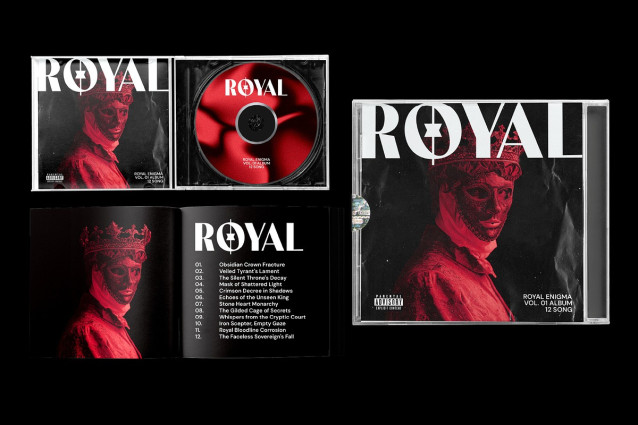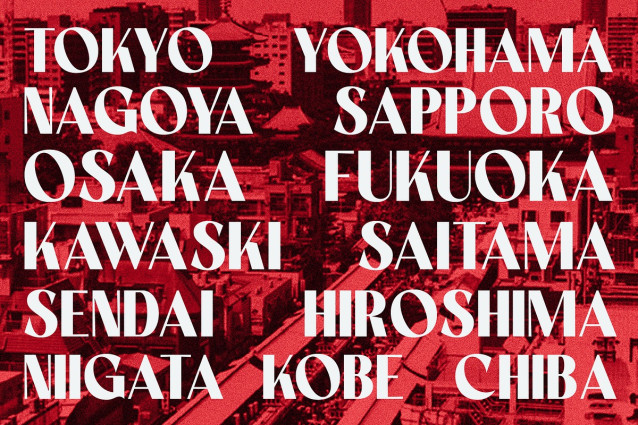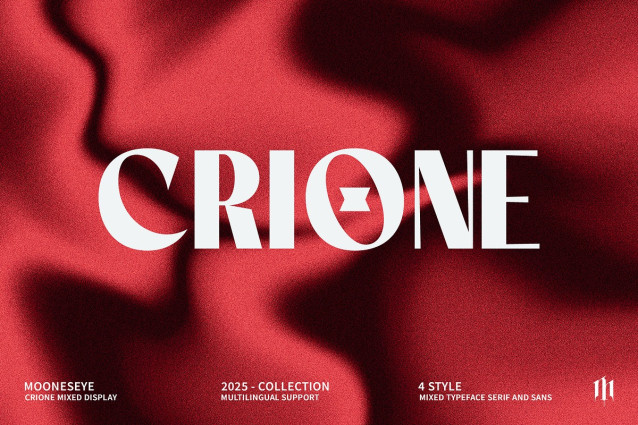
Crione Font
Crione Font a sophisticated and elegant display font that blends classic serif charm with a bold, modern edge. With its stunning high-contrast strokes and unique, geometric forms, Crione is the perfect choice for creating a premium and luxurious brand identity.
Whether you’re designing for high-end fashion, beauty brands, or an exclusive event, this font instantly adds a touch of class and distinction. The standout character—an ‘O’ with a captivating star-like cutout—makes your logos and headlines truly unforgettable.
Crione isn’t just one font; it’s a versatile toolkit. With both Regular and Rounded styles included, you can choose between sharp, crisp elegance and a softer, more approachable feel. Make a statement and let your brand shine with this exquisite typeface.